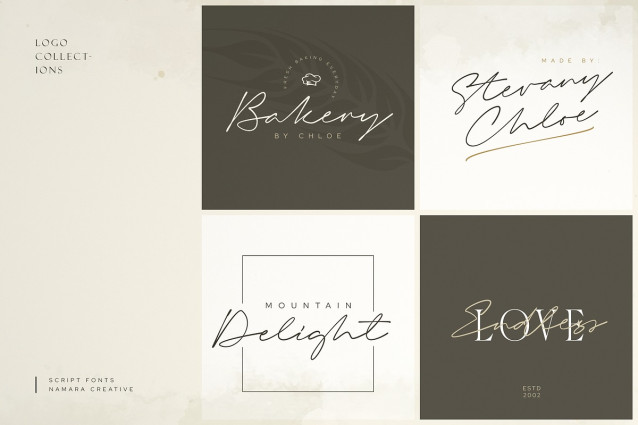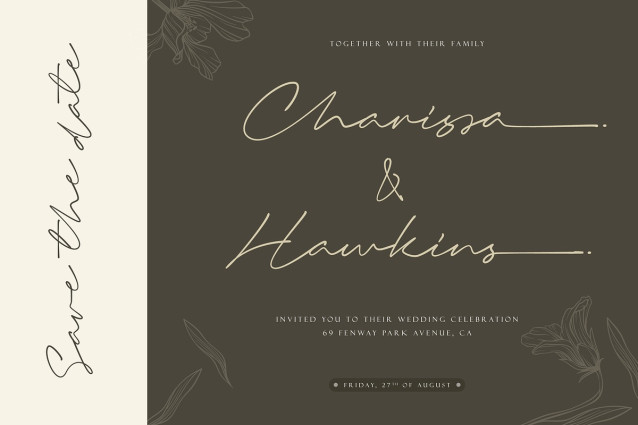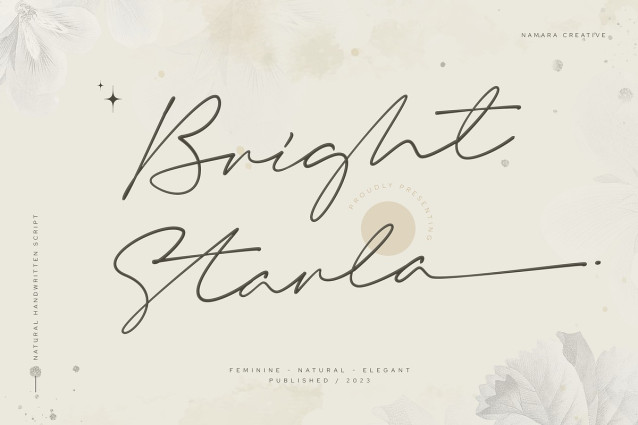
Bright Starla Font
Bright Starla Font – A natural, elegant handwritten font that exudes sophistication, grace, and elegance. It is a perfect choice for designs that require a natural handwritten style and a luxurious style, such as wedding invitations, high-end fashion brands, or high-end product packaging. This font can also be used to create a more friendly, approachable feel, bringing a sense of timelessness and class to any design project.